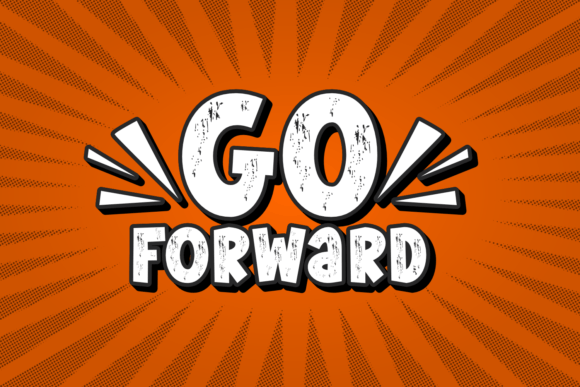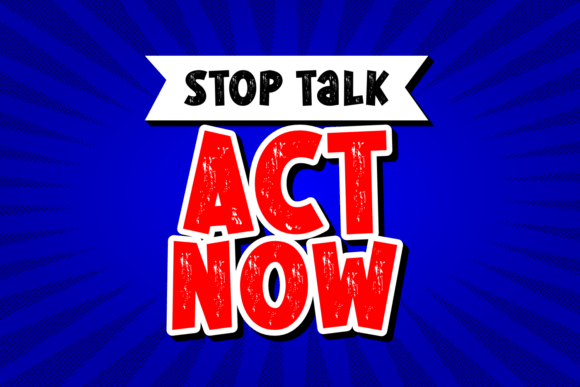
Introduction to Brave Action Font
Brave Action is a powerful display font with a distressed look.
These strong characters are perfect for creating inspiring typography Use them to add personality and style to posters, quotes, covers, headlines, t-shirts, and more.
Key Features of Brave Action Font
Why Choose Brave Action Font?
Brave Action Font offers exceptional quality and versatility, making it a valuable addition to your design toolkit. Whether you’re creating for personal projects or commercial use, Brave Action Font delivers professional results.